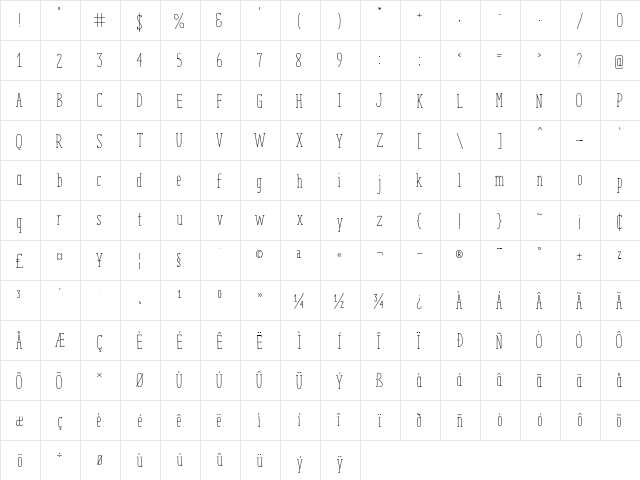
ENYO Serif Light Light
| Foundry | Julia Martinez Diana, Antipixel |
| Designer | Julia Martinez Diana, Antipixel |
Design Context for ENYO Serif Light Typeface
ENYO Serif Light brings classic typographic sensibility to the table — its serifs and measured letterforms reflect centuries of print heritage. Its slender proportions lend an understated elegance to any composition.
Pro Tip: Use ENYO Serif Light with generous line-spacing for the most refined reading experience — its light weight benefits from room between lines.